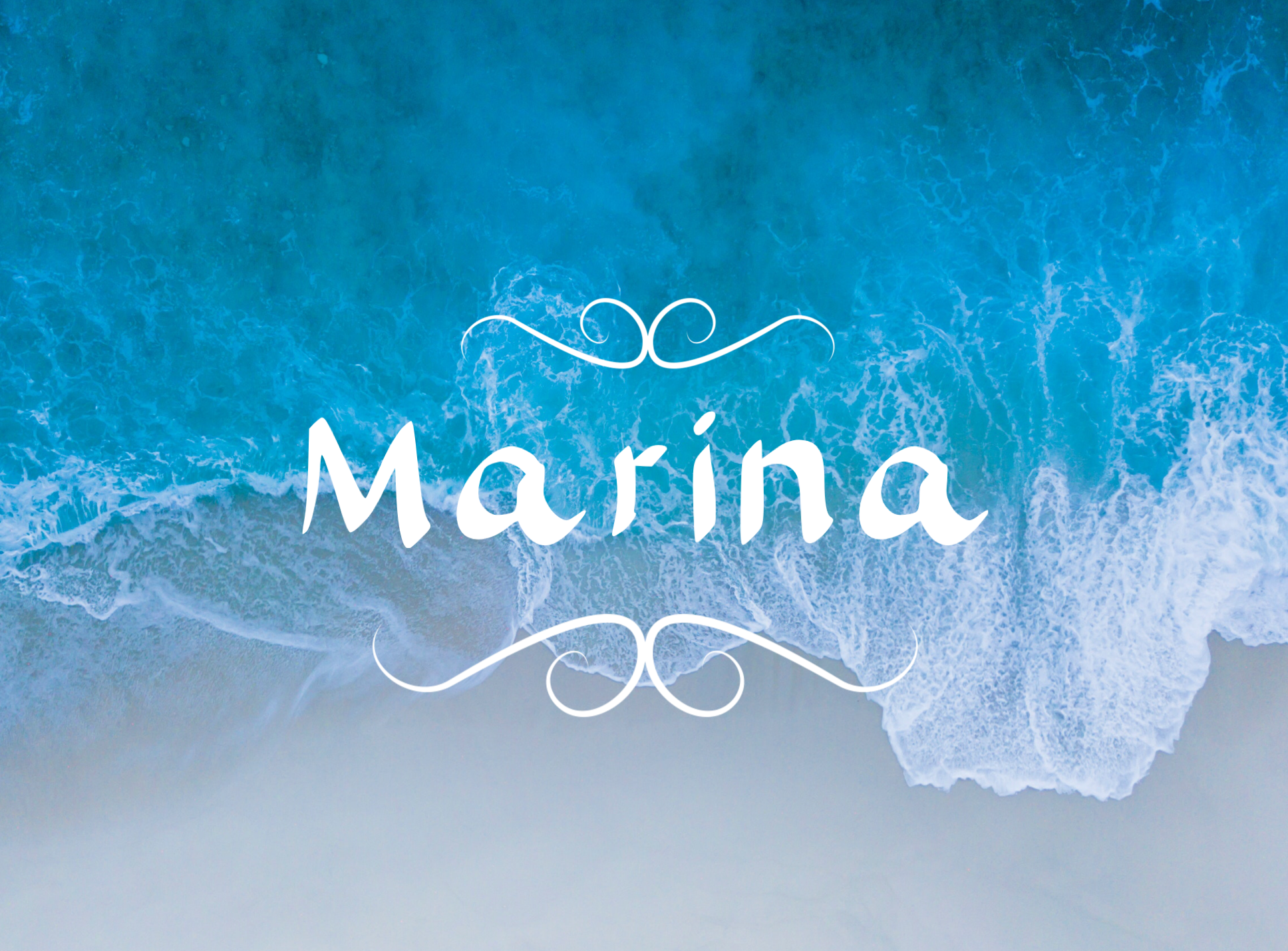
Marina Handwritten Font
Marina is a handwritten font inspired by the gentle blue waves of the sea. Ideal for logos, handwritten quotes, product packaging, header, poster, merchandise, social media & greeting cards.